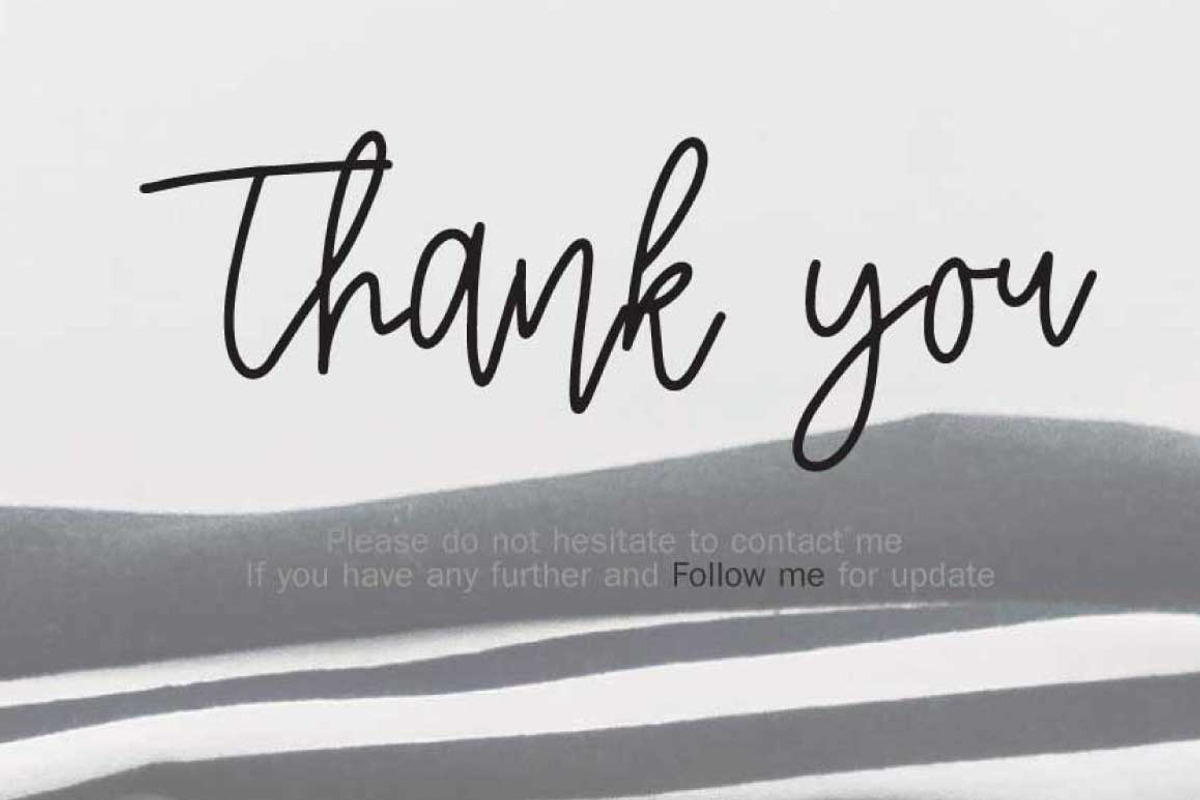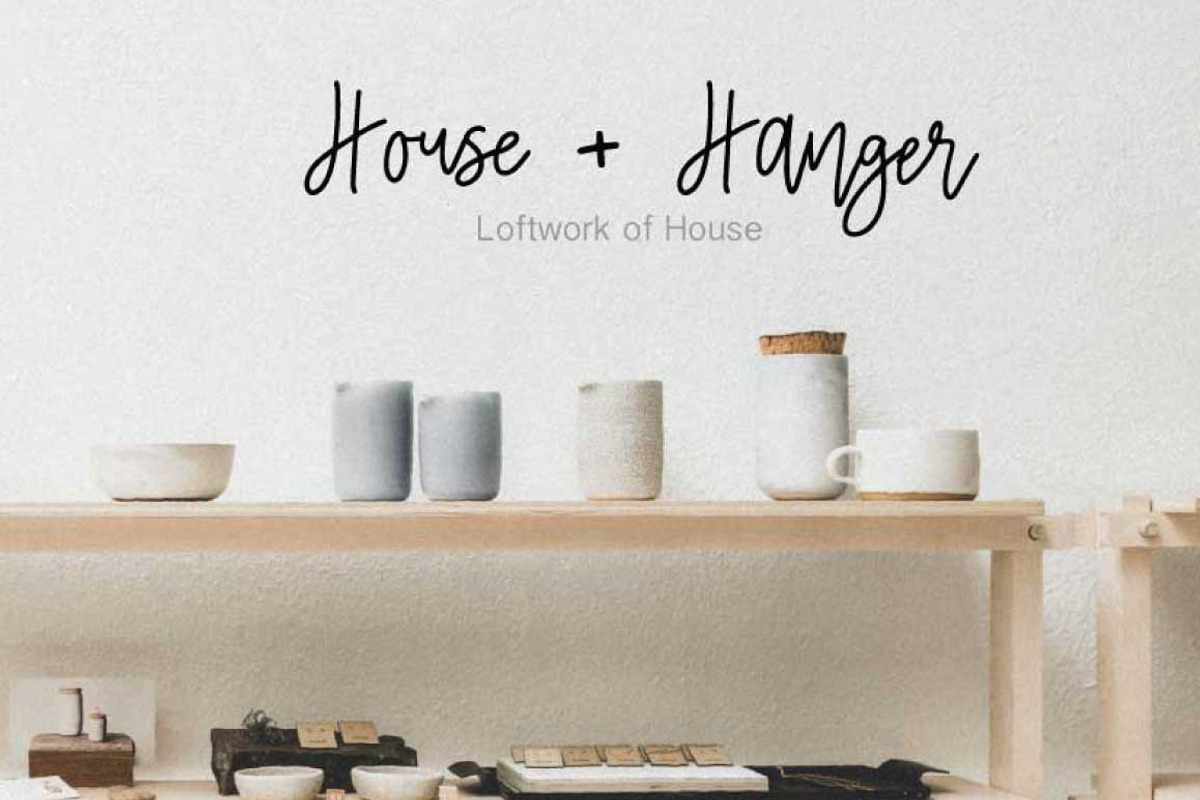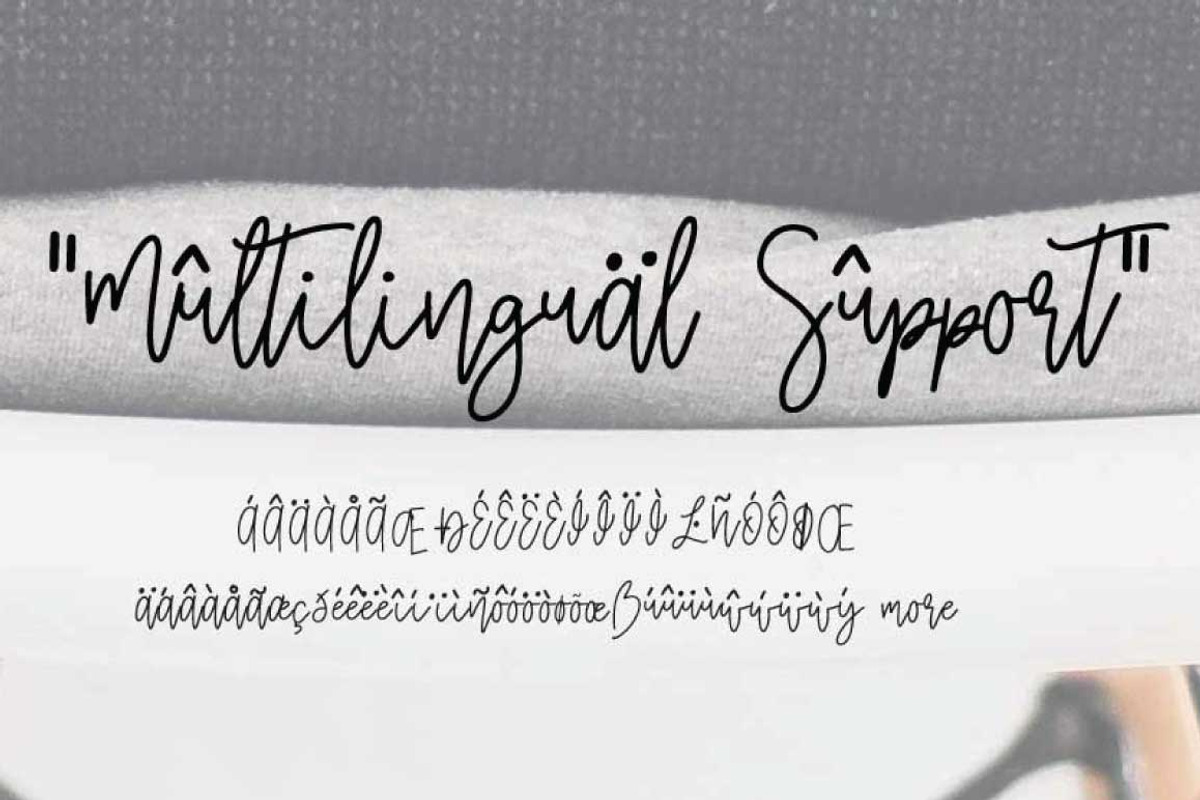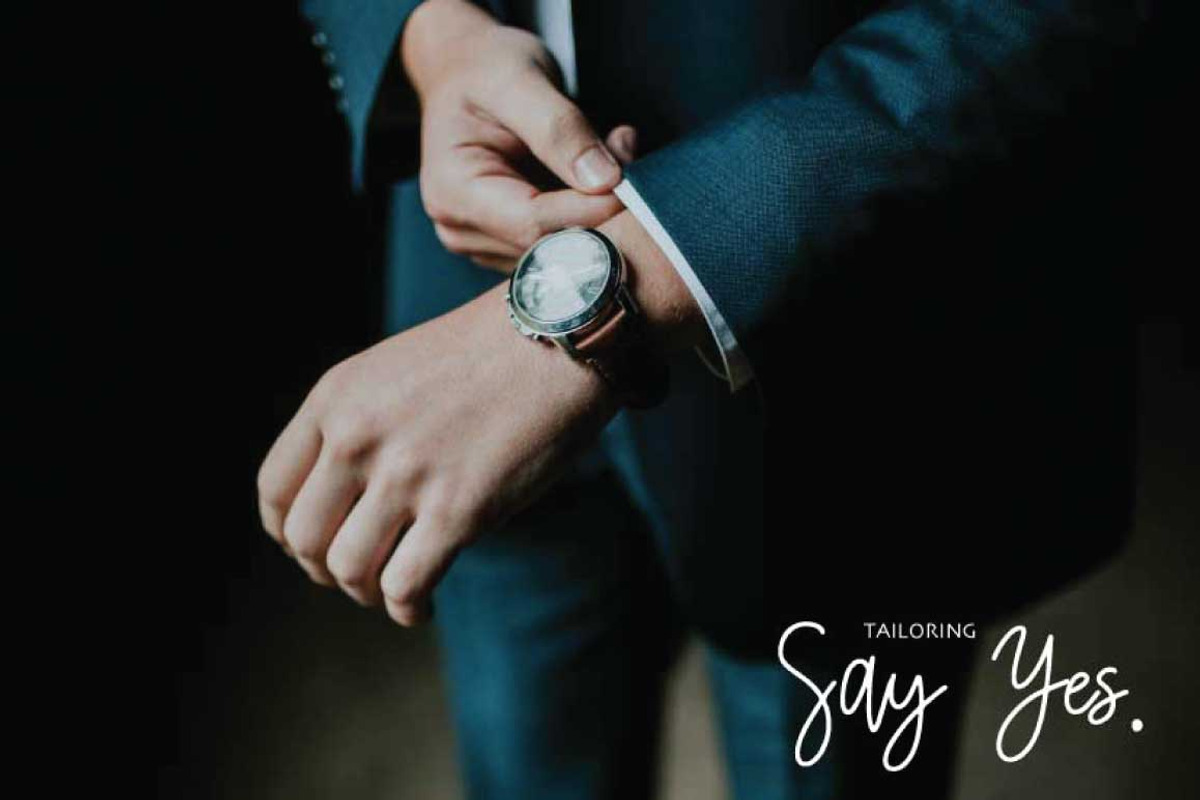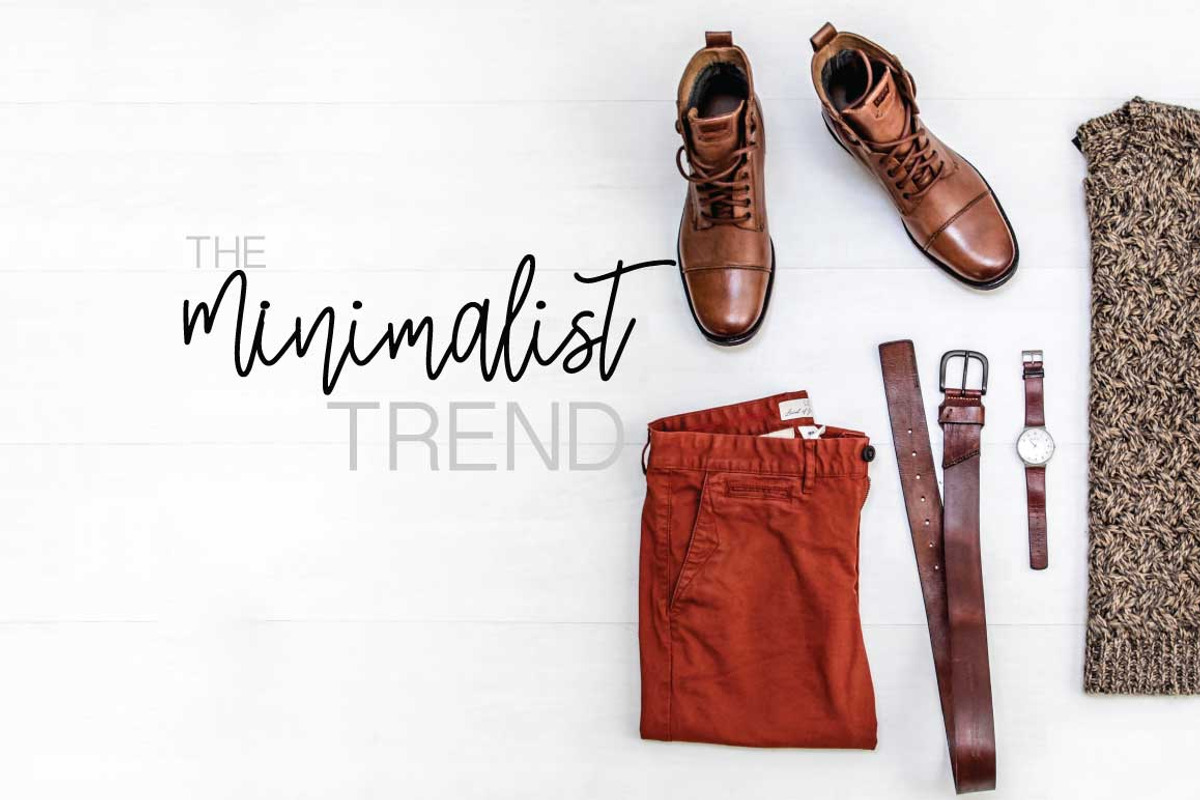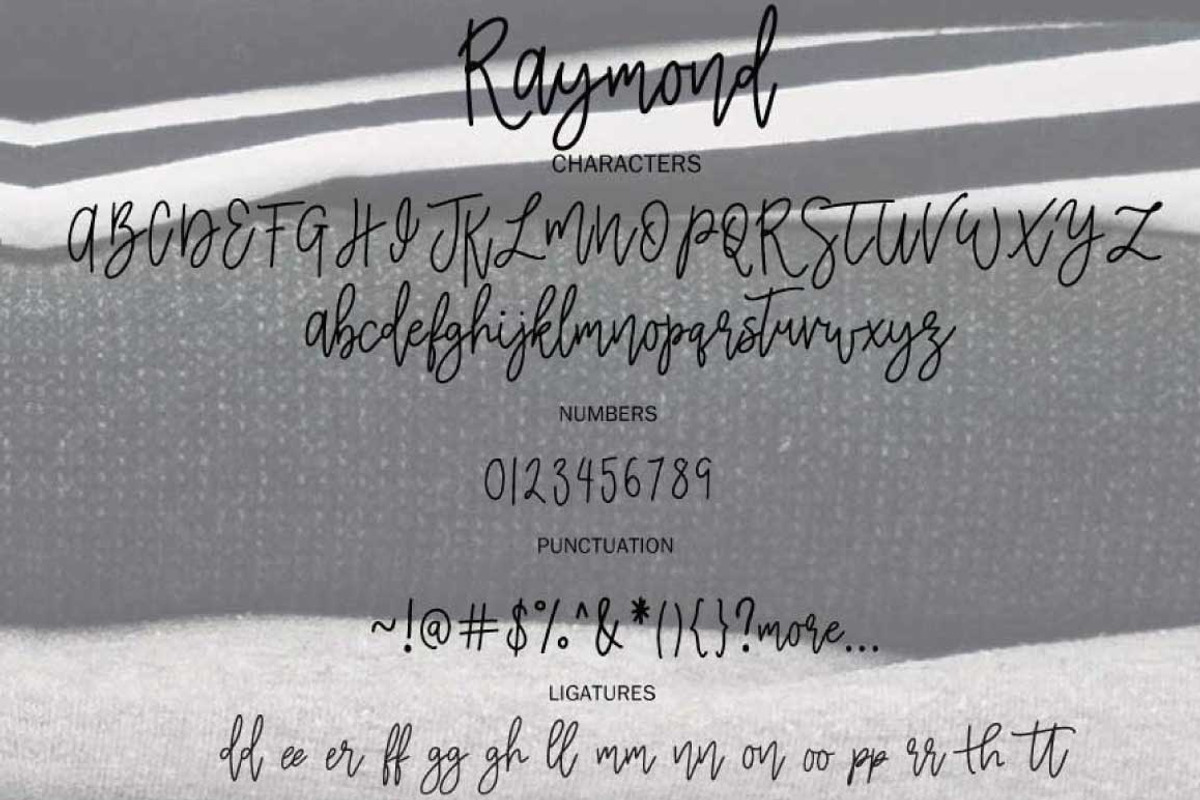
Raymond | Branding Font
RAYMOND is branding font. Every single letter has been creative carefully This font is a little romantic script designed for making your set of invitations, quotes, blog posts, and more completely beautiful
Multilingual support is included for Western European
Raymond | Branding Font by Artstudio fits naturally into Branding, posters, packaging, typography.